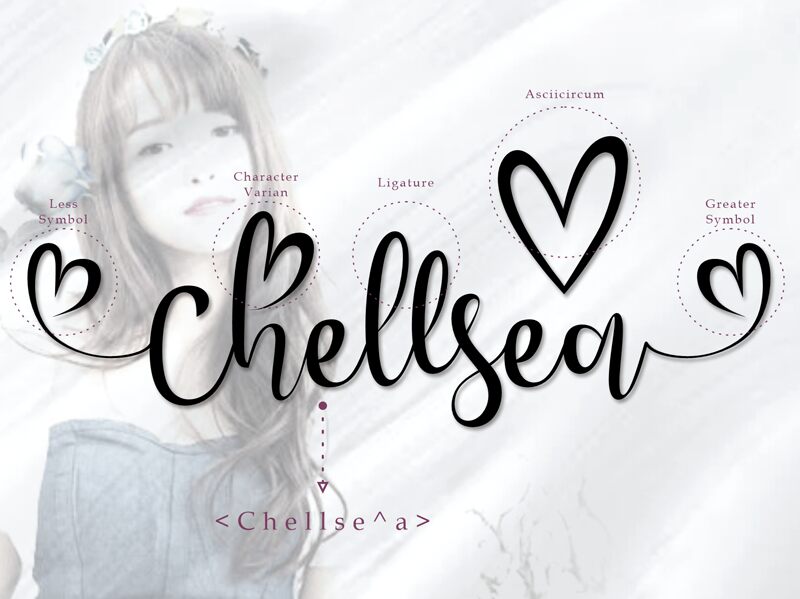
Chellsea is a beautiful script calligraphy font created by Nuryanto Dwi. Its light weight makes it perfect for adding a stylish touch to any project, from wedding invitations and greeting cards to logos and branding.